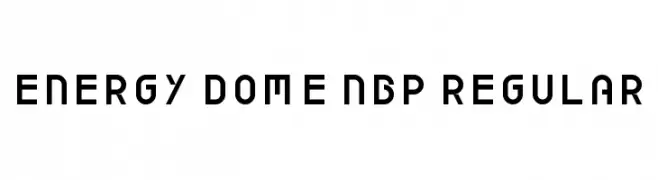
Energy Dome NBP Regular Font
A bold, geometric font with a modern and industrial aesthetic.
Infinite Energy Italic Font
Font by Darrell Flood - Personal-use only. For commercial use please contact owner.
A bold, italic font with a dynamic, futuristic style.
Energy Regular Font
Font by Vladimir Nikolic - www.creativefabrica.com/designer/vladimirnikolic/ - Personal-use only. For commercial use please contact owner.
A bold, three-dimensional font with a strong, industrial aesthetic.
Energy Spike Italic Font